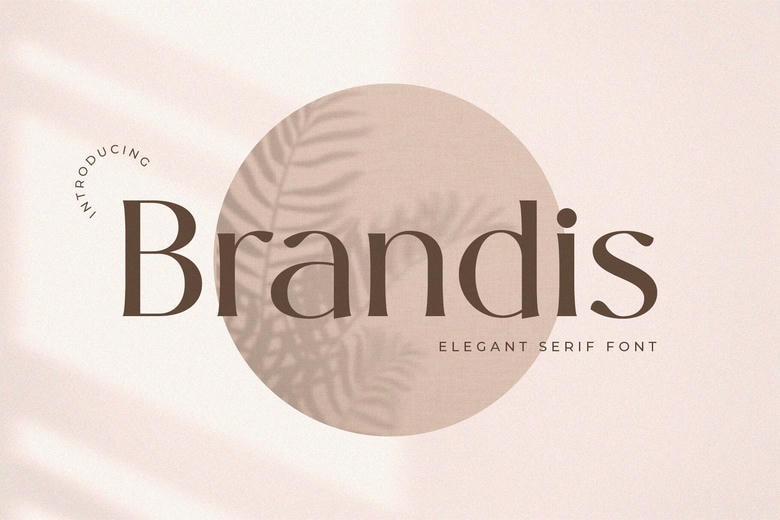
Brandis Font
Brandis is a classy and gentle serif typeface that adds some class to any project. Brandis works great in branding, editorial work, logo design, packaging, wedding stationery, and top-quality marketing collateral with its smooth curves and where the contrast is just right.
Designed to take on a fresh approach, yet timeless, Brandis can be described as having sharp serifs, fluid transitions, and a unique groovy style that lies between modern luxury and classical elegance. This font is clear, beautiful, and professional whether in the headline or in the body copy.
Brandis Serif Font